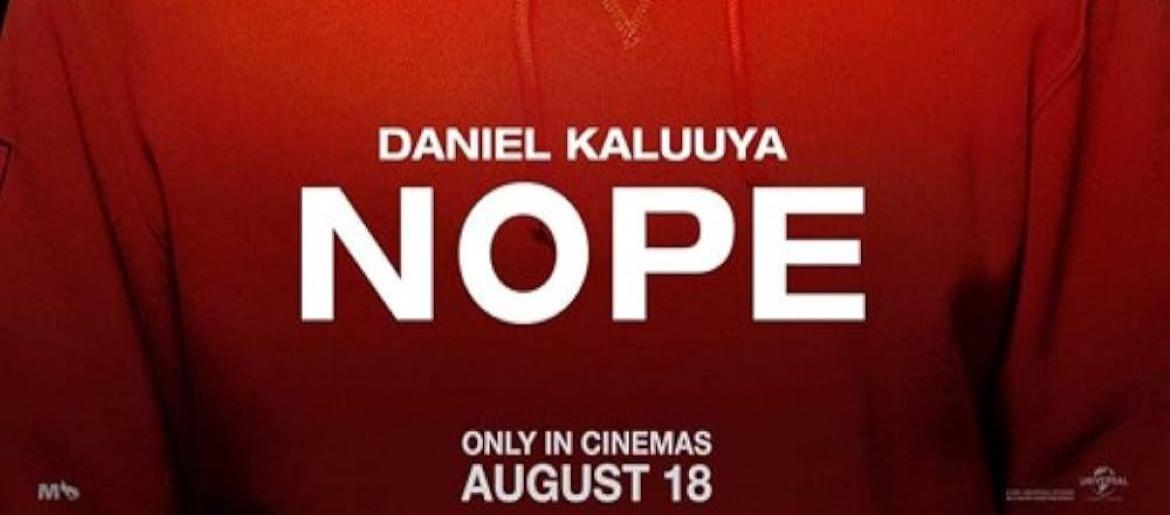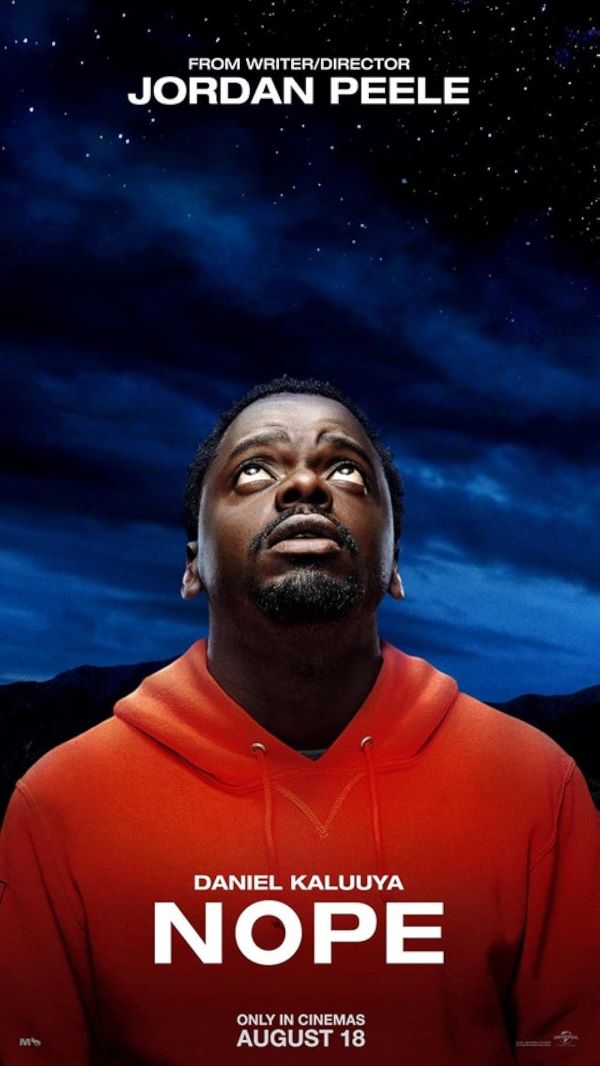
Nope Font
What is The Font Of Nope?
The Nope Font used in the title treatment of the film is very likely a modified version of Neue Helvetica Pro 73 Extended Bold — a commercial typeface characterised by its heavy weight, extended width and clean sans-serif structure. For those working on personal or creative projects without access to a commercial license, a free alternative font is available that closely mimics this bold, impactful look — ideal for headlines, posters or design work inspired by the film’s visual tone.
About Nope
Nope (2022) is a science-fiction horror film directed by Jordan Peele. It blends elements of spectacle, mystery and horror into a story that follows siblings on a remote California horse ranch who uncover a strange phenomenon in the sky. The typography of the title — with its bold weight and extended form — reflects the film’s emphasis on scale, tension and dramatic visual presence.